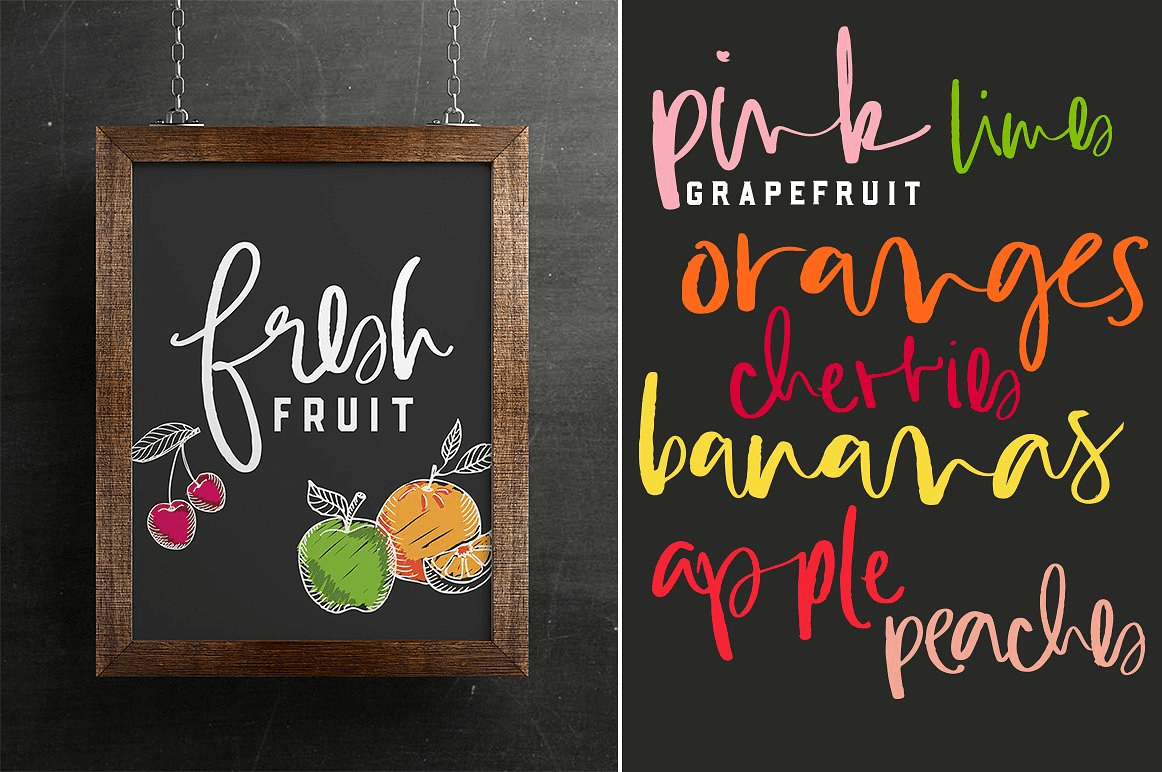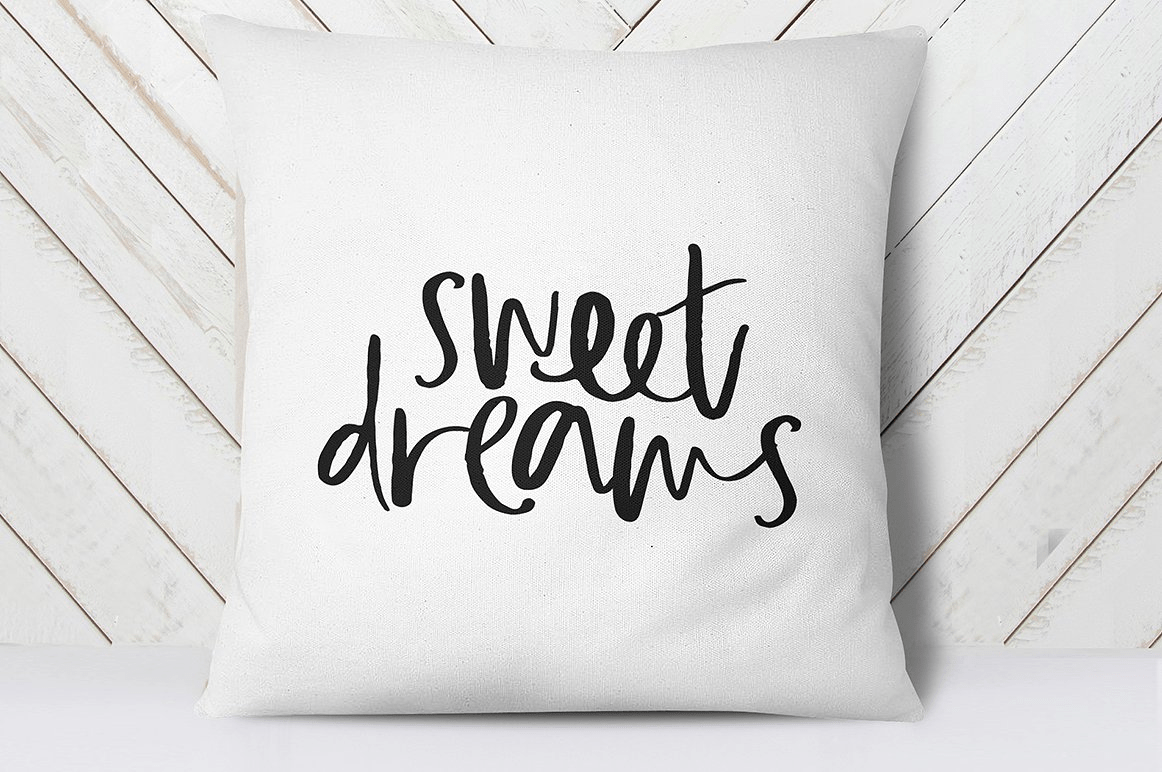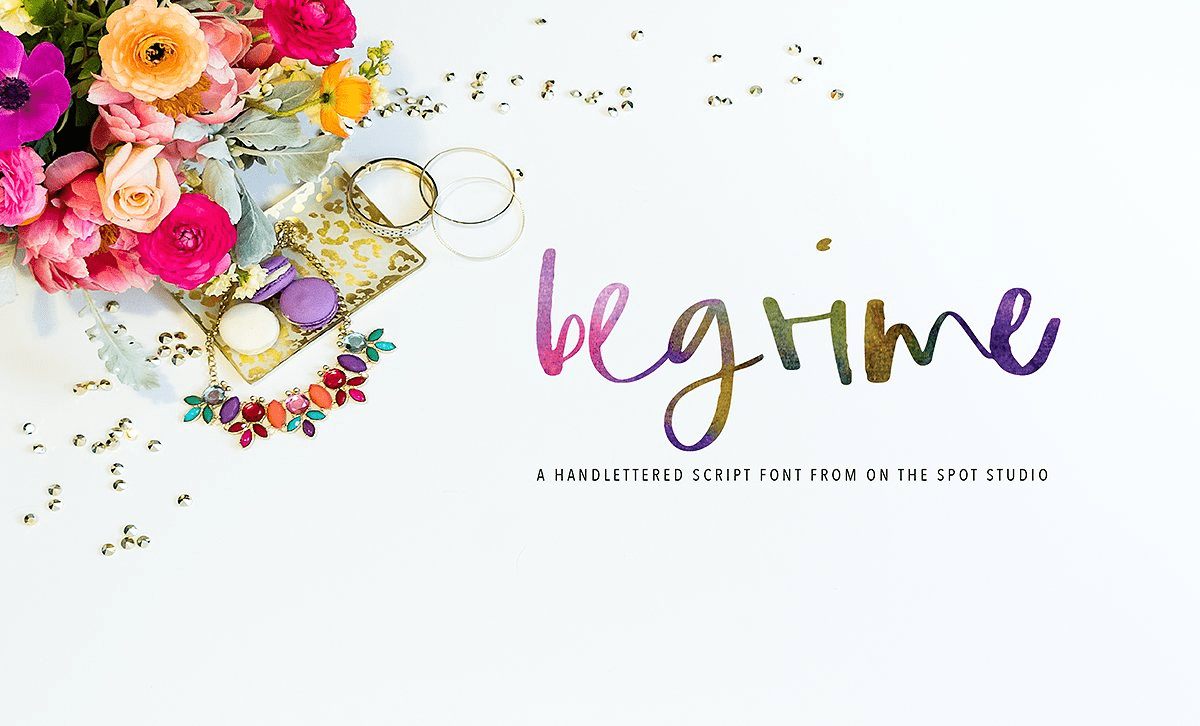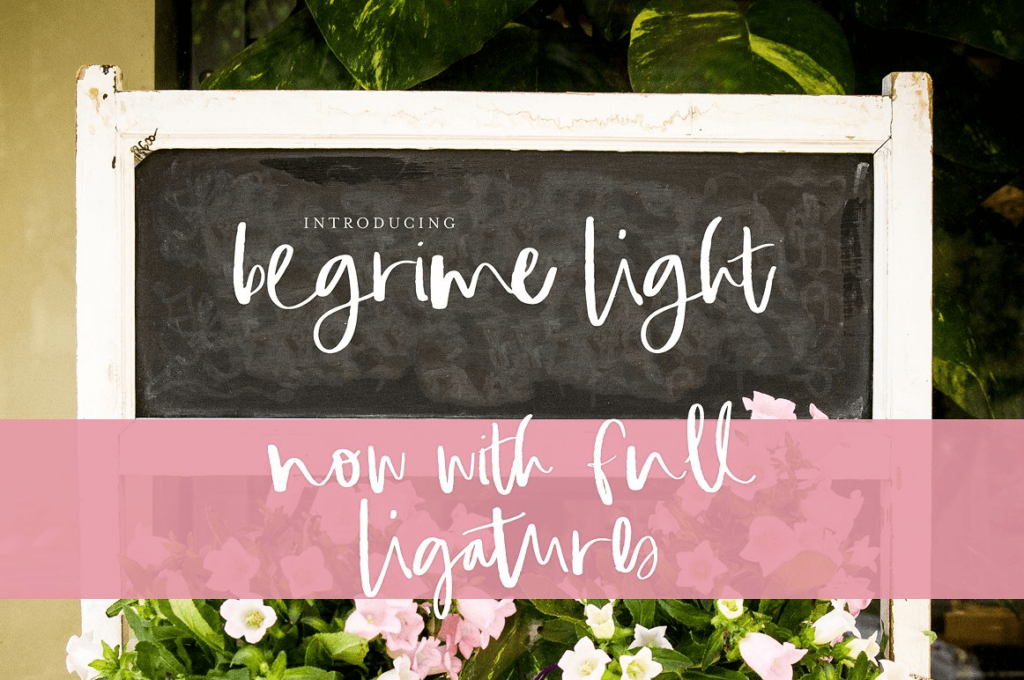
Begrime Light is my favorite font yet! Hand inked with multiple letter combos to make endless projects look entirely handlettered! Includes open type features as well as accents & more!